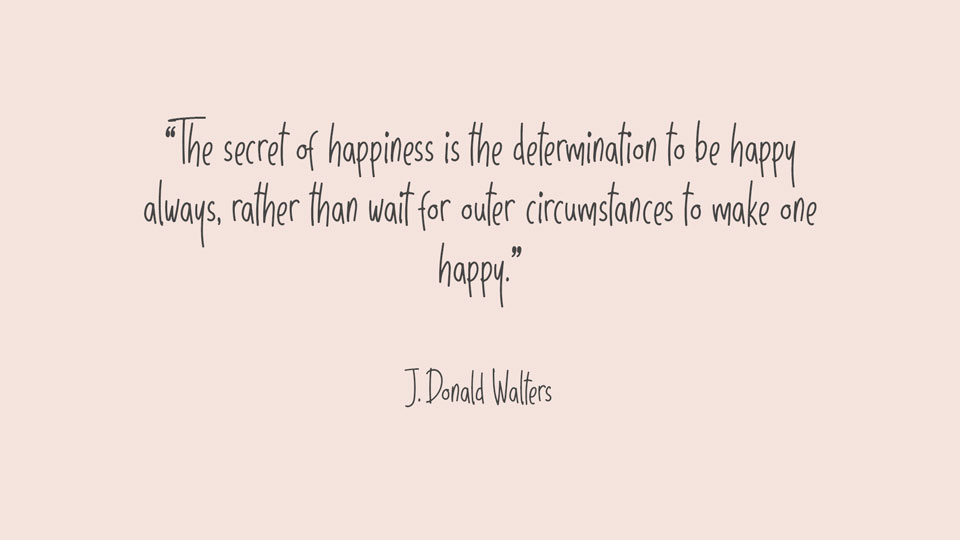
Sunday Holiday is a lovely handwritten font with free flow and natural casual look. It comes with a full set of glyphs, including multilingual support and ligatures.
Sunday Holiday font is perfect for craft design,cards, letters, everyday notes, quotes and more.